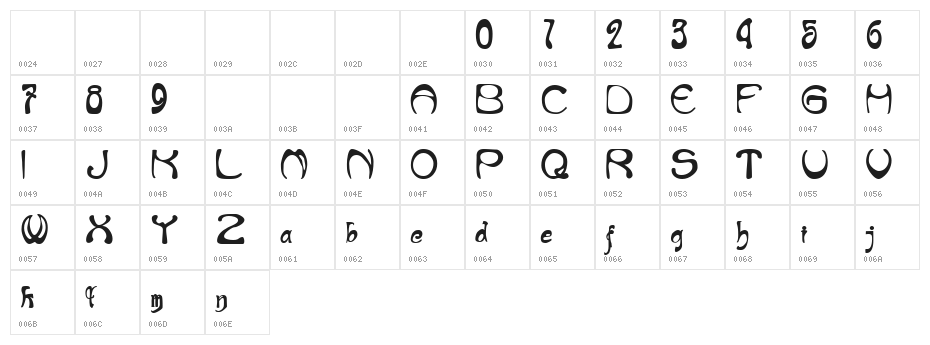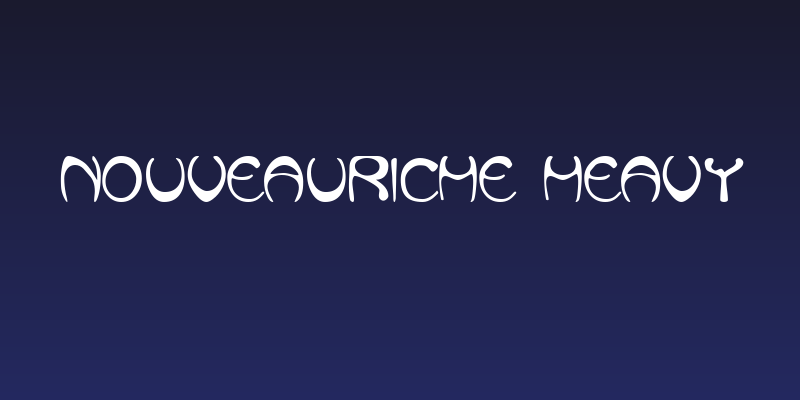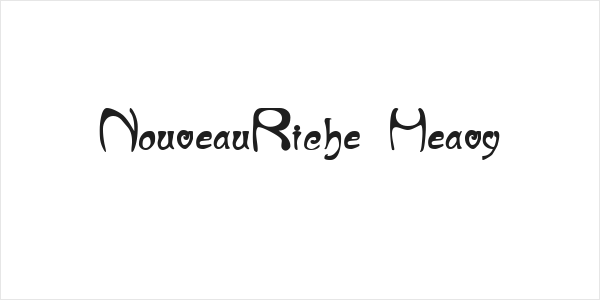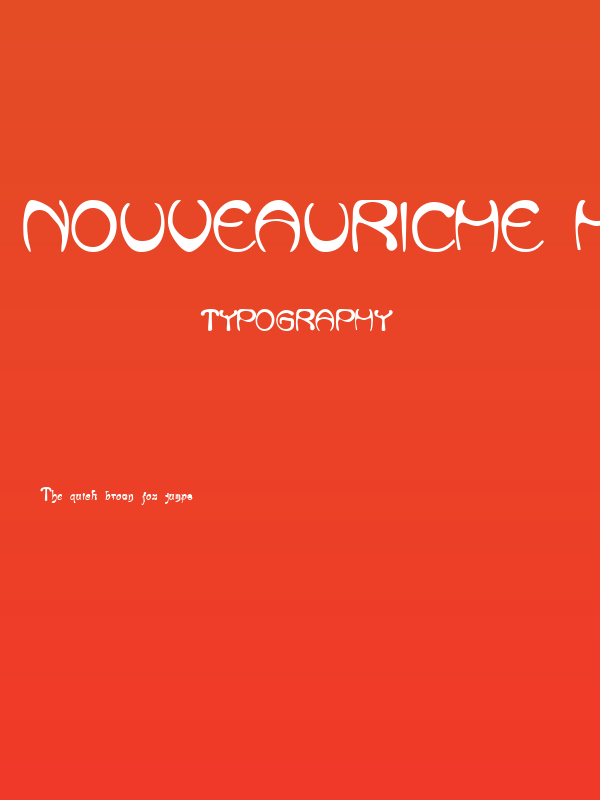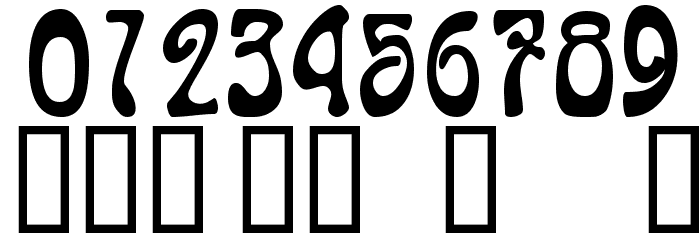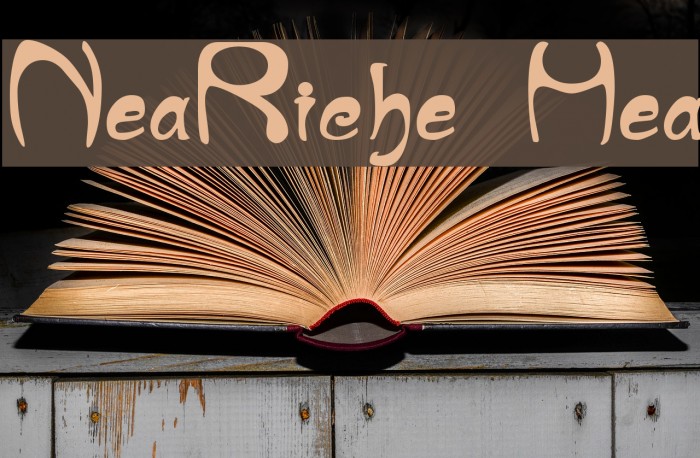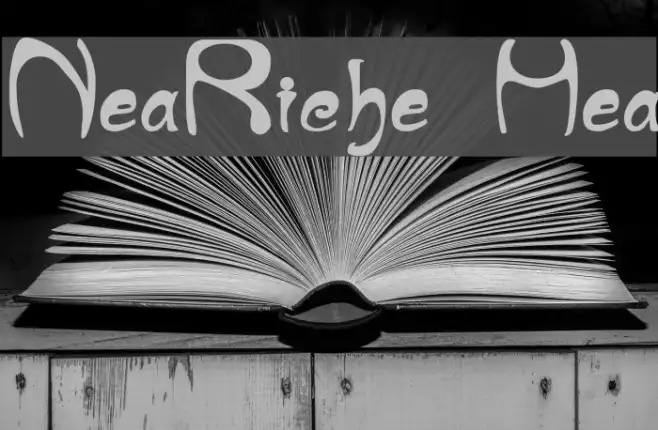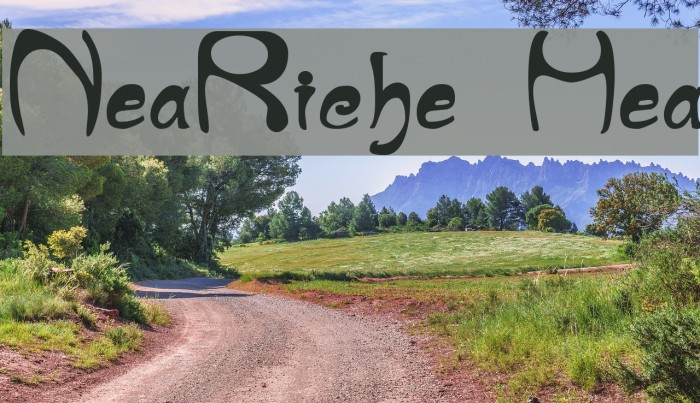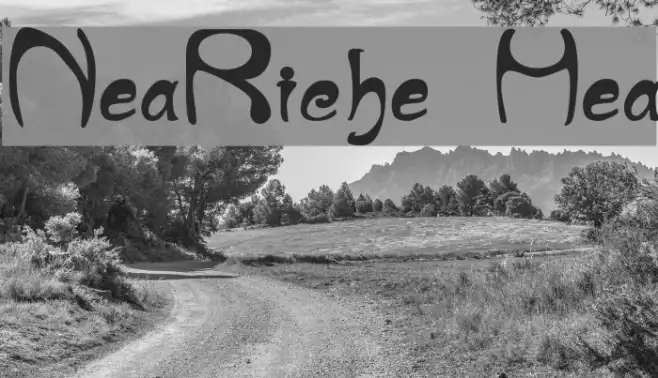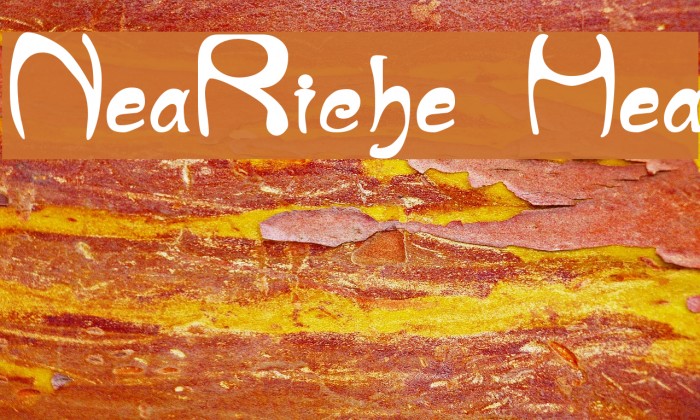
NouveauRiche Heavy Font
NouveauRiche Heavy Description
This font features a bold and artistic design, characterized by its unique and flowing letterforms. The uppercase letters exhibit a playful and whimsical style, with exaggerated curves and varying stroke widths that give it a dynamic appearance. The lowercase letters maintain this artistic flair, with some characters having distinctive swashes and loops that enhance its decorative nature. The numerals are bold and consistent with the overall style, ensuring readability while maintaining the font's creative essence. Special characters are designed to complement the alphabet, adding to the font's versatility. This font is ideal for projects that require a touch of creativity and flair.